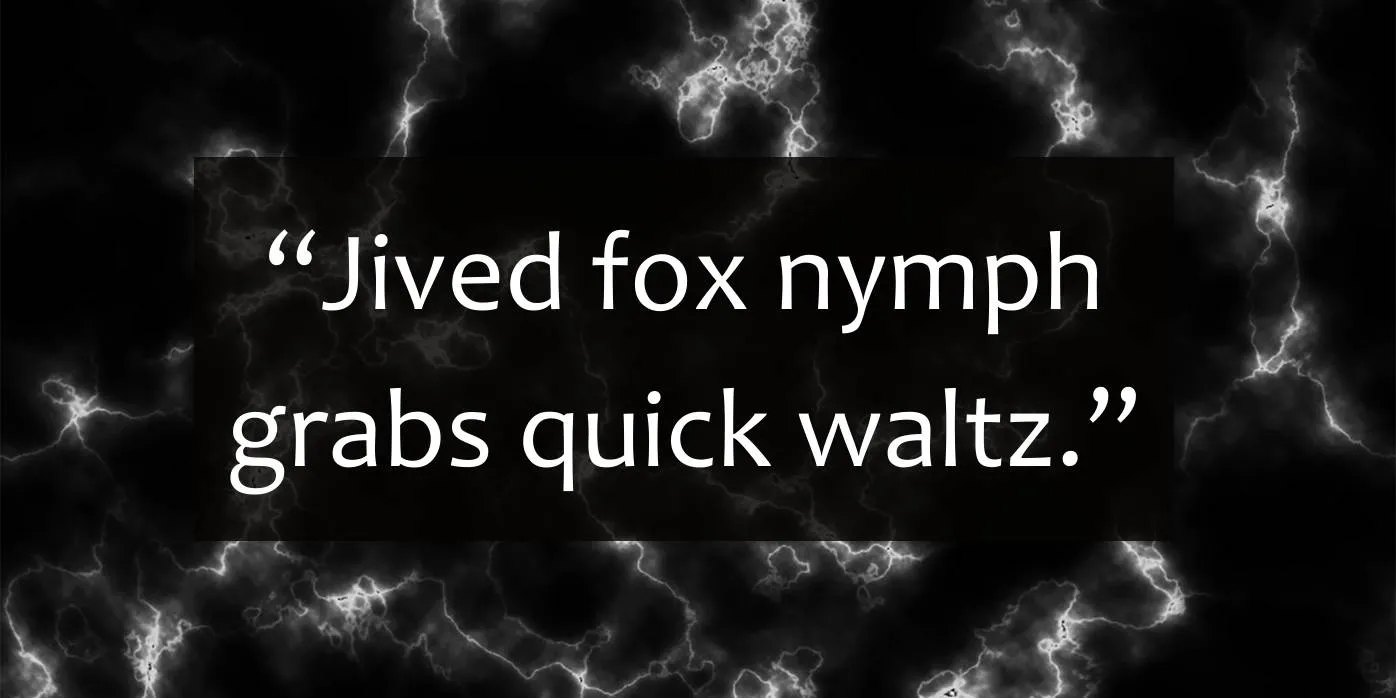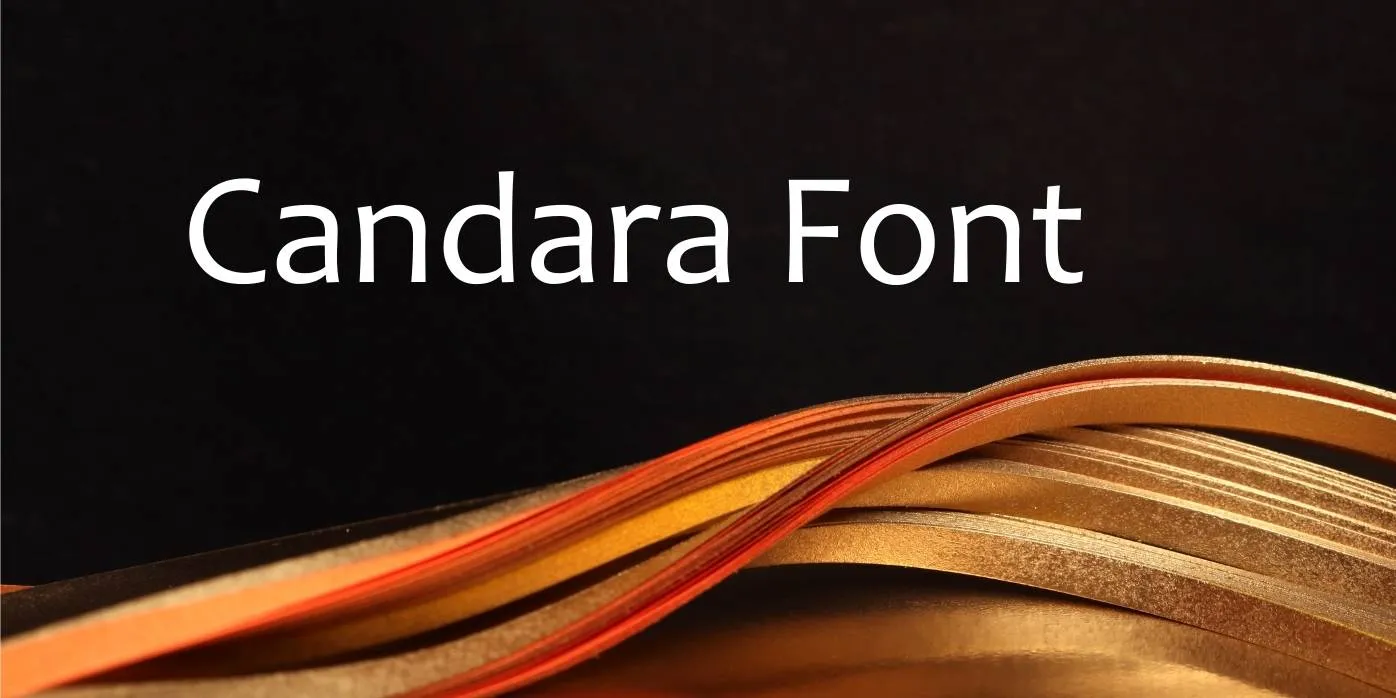
Candara Font
Candara Font was developed and published by Gary Munch. This stylish and attractive font belongs to the Sans-Serif typeface. Its large apparatus and delicate letterforms give it a very distinctive and modern look. This stunning font is best for the CSS Family.
This typeface is a great choice for use on the web, as it renders well at small sizes and is supported by all major browsers. It also looks great when put in your projects its similar to Cocogoose Font. However, it also has a touch of classic elegance that makes it suitable for more traditional applications as well. This typeface comes in six weights: Thin, Light, Regular, Medium, Bold, and Heavy.
These Styles increase their performance. This font family is best for Adobe. Each weight has a different character set, so you can choose the perfect one for your needs. The italic styles are also available in each weight.